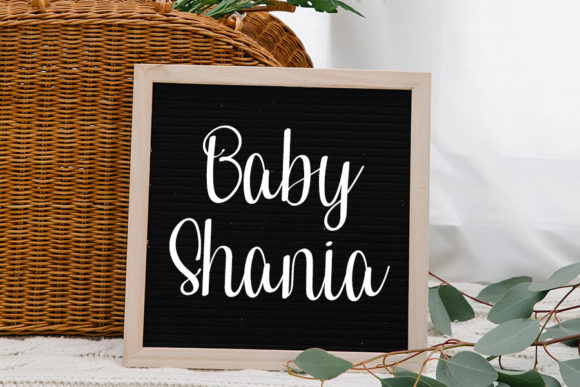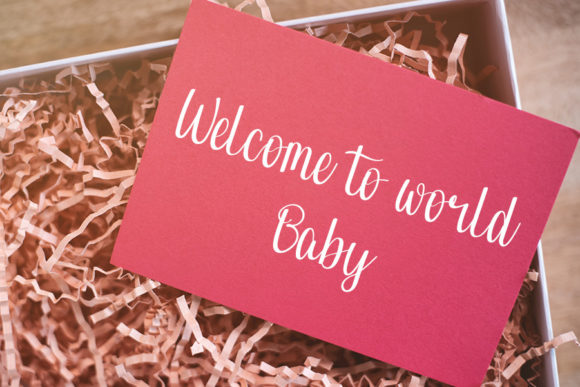
Baby Shower Font
db-ku.com - Script & Handwritten -- Baby Shower is a trendy and chic handwritten font with a contemporary atmosphere and impeccable form, inspired by a timeless classic calligraphy. Not too thin and not too thick, balanced and varied, this font was designed to enhance the beauty of your projects.